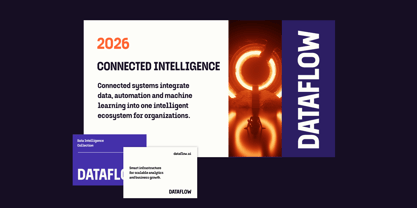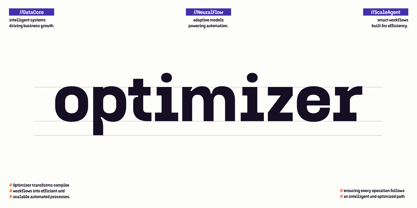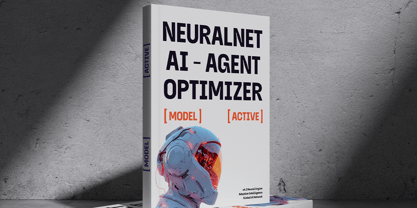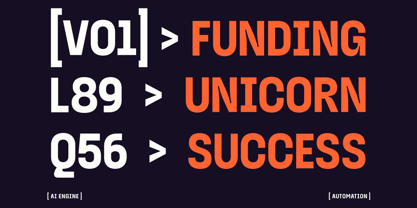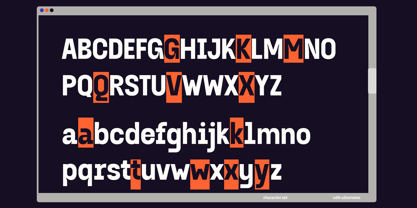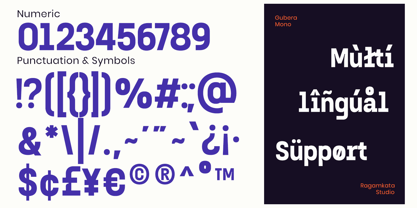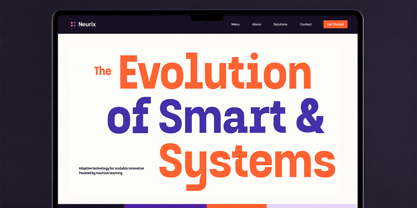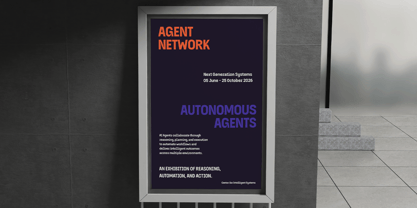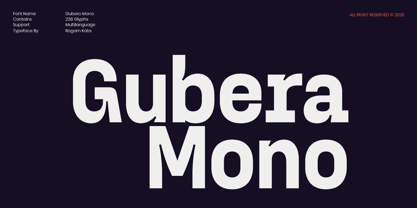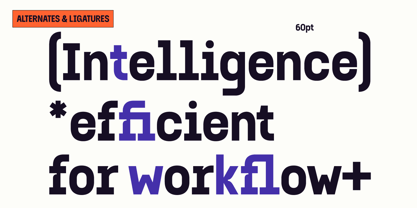
Gubera Mono
by RagamKata
The Gubera Mono Font Family was designed by Yogiswhara Dio Prakoso Riadi and published by RagamKata. Gubera Mono contains 2 styles and family package options. More about this family
Gubero Mono is a bold modern monospace font crafted for designers who want to combine technical precision with strong visual impact. Featuring geometric letterforms, clean proportions, and distinctive slab-inspired terminals, this typeface delivers a contemporary aesthetic that feels equally at home in futuristic interfaces, editorial layouts, branding systems, and technology-driven projects. With stylistic alternates and ligatures included, Gubero Mono gives you the flexibility to create expressive typography while maintaining the structured rhythm of a monospace design.
Designed to perform across both digital and print media, Gubero Mono is perfect for AI branding, startup identities, software interfaces, coding-inspired graphics, UI/UX design, posters, packaging, websites, social media, magazines, books, and modern advertising campaigns. Its bold appearance ensures excellent readability while creating memorable headlines and impactful visual communication.
The font includes uppercase, lowercase, numerals, punctuation, symbols, multilingual support, stylistic alternates, making it a versatile choice for creative professionals seeking a unique monospace font with personality. Whether you're building a futuristic brand, designing an innovative product, or creating editorial layouts with a modern edge, Gubero Mono delivers confident typography that stands out.
• Regular and Italic
• Stylistic Alternates
• Uppercase and Lowercase
• Number, Symbol, and Punctuation
• Multilingual Support
Designers: Yogiswhara Dio Prakoso Riadi
Foundry: RagamKata